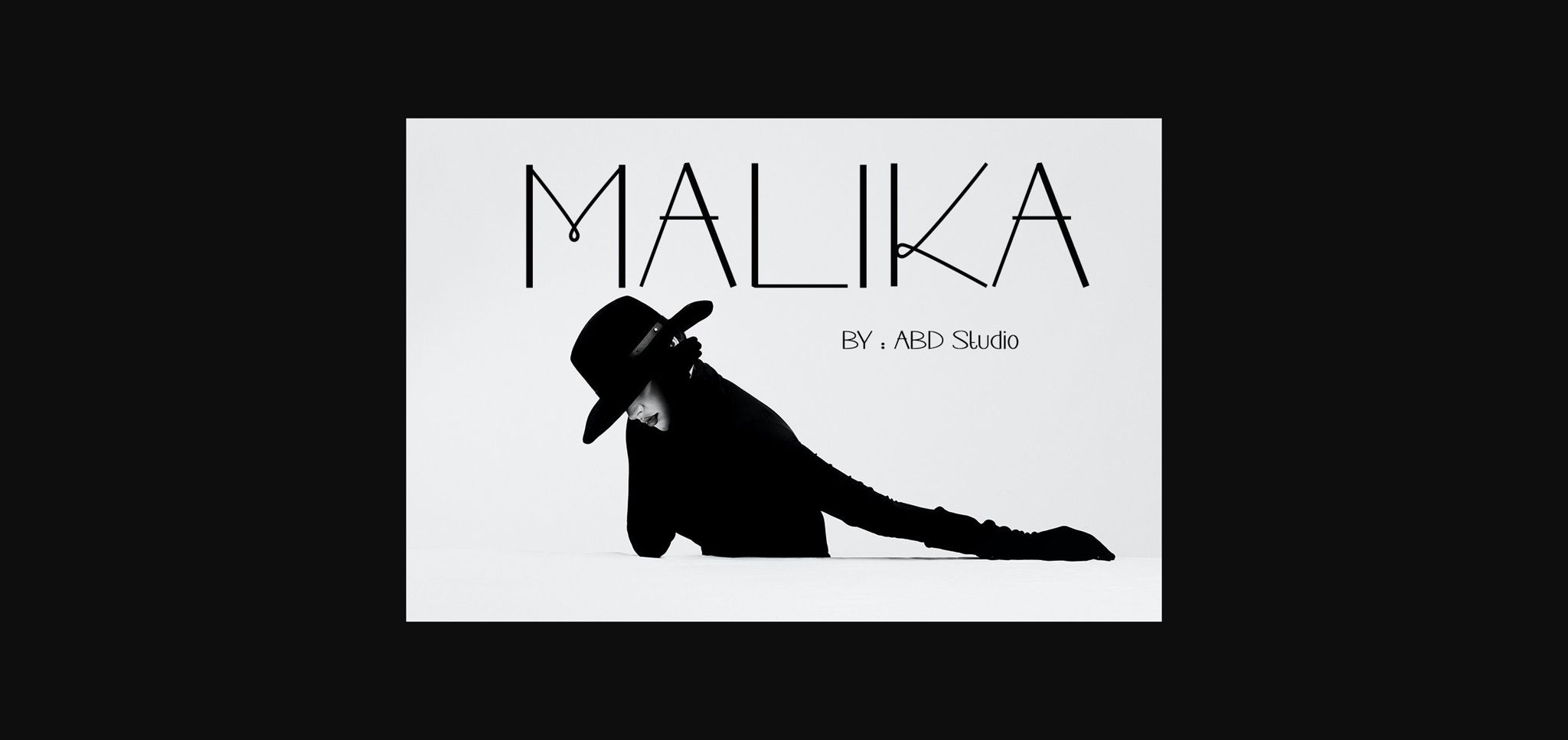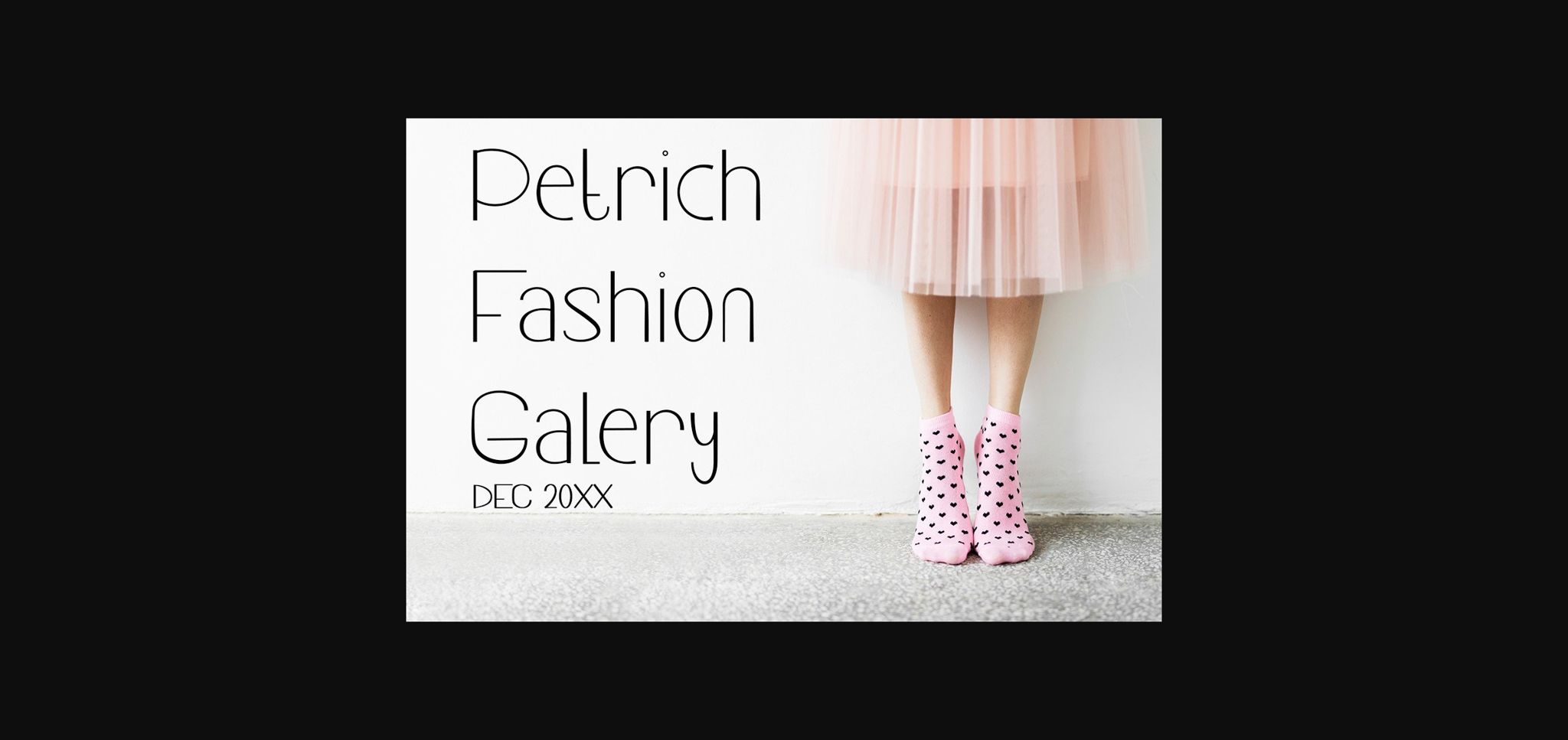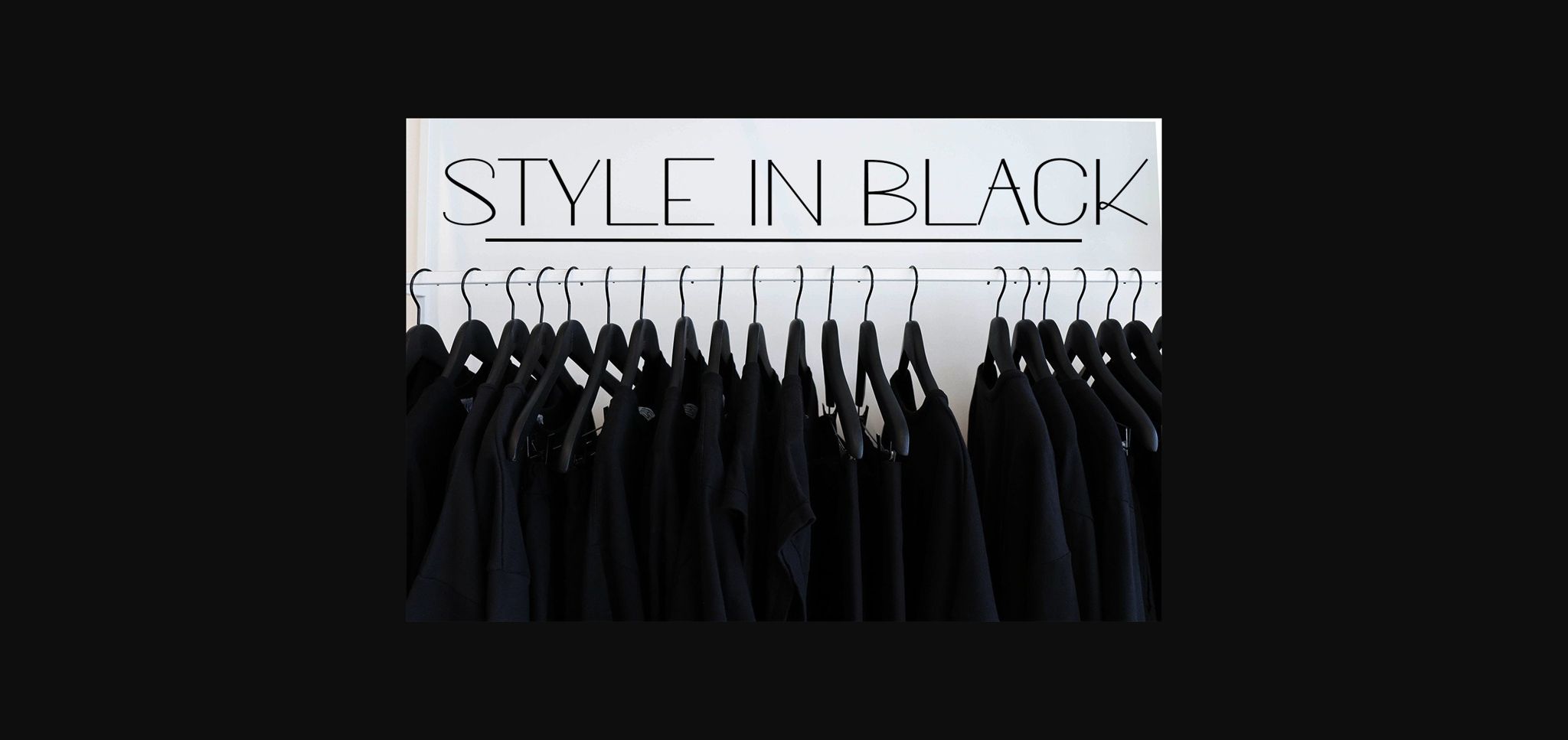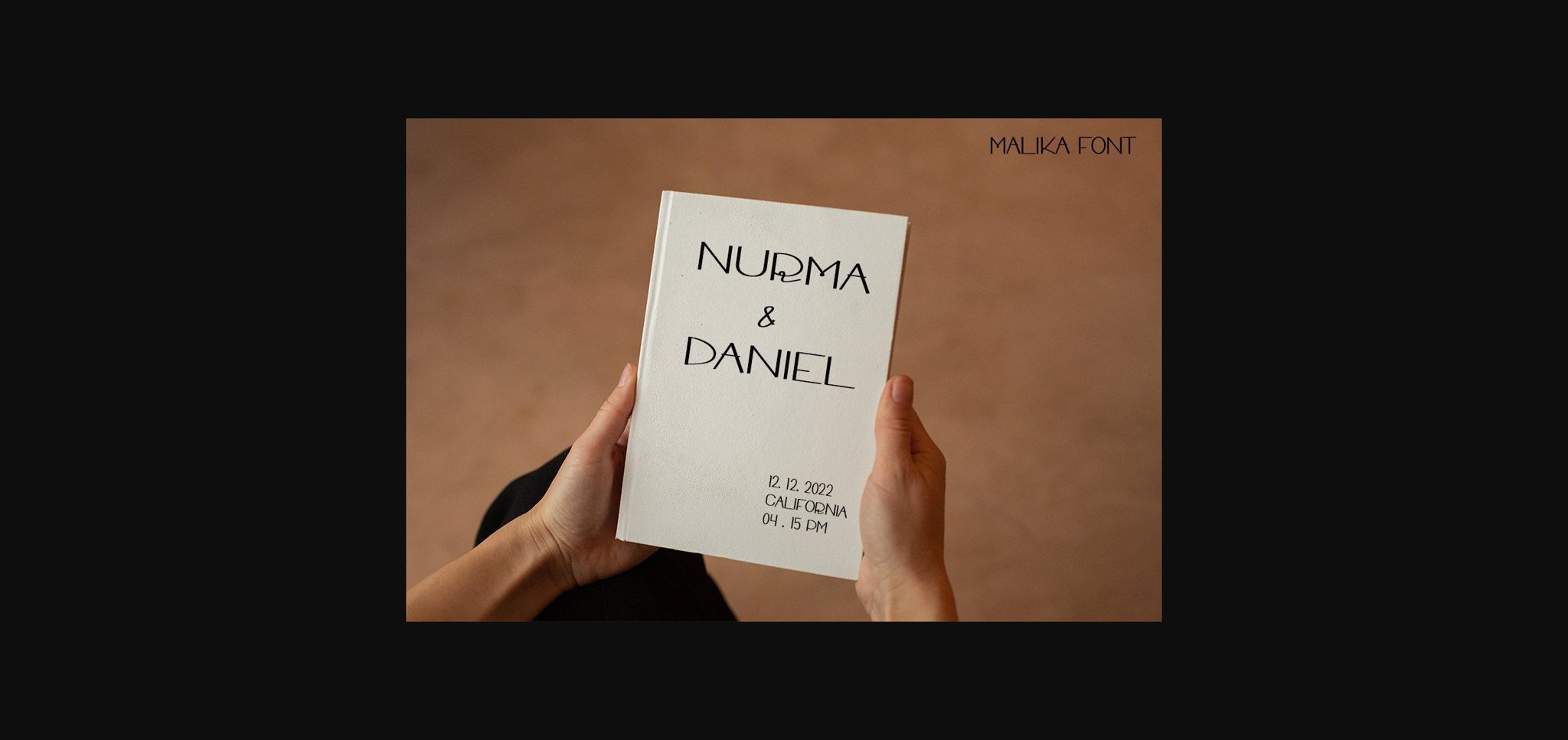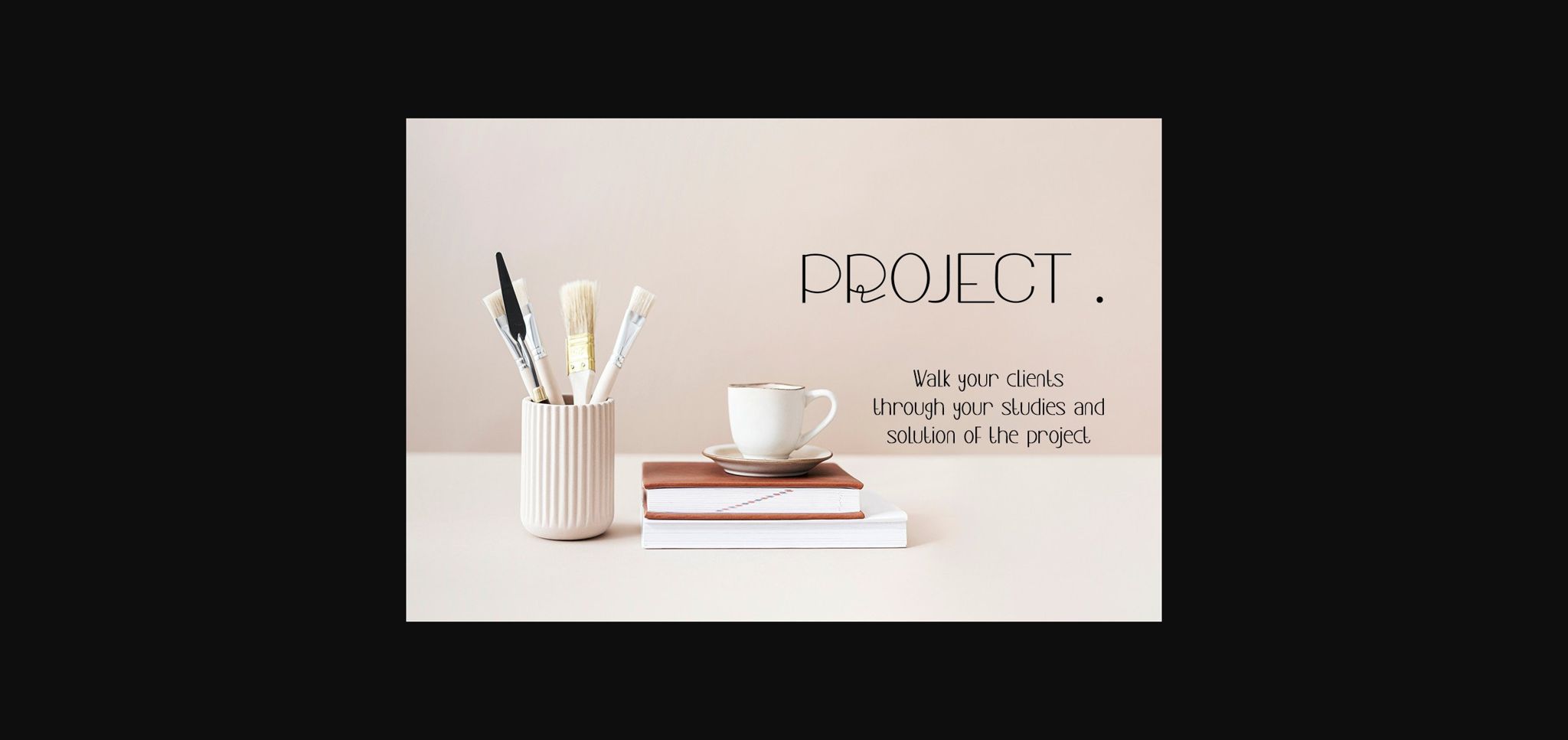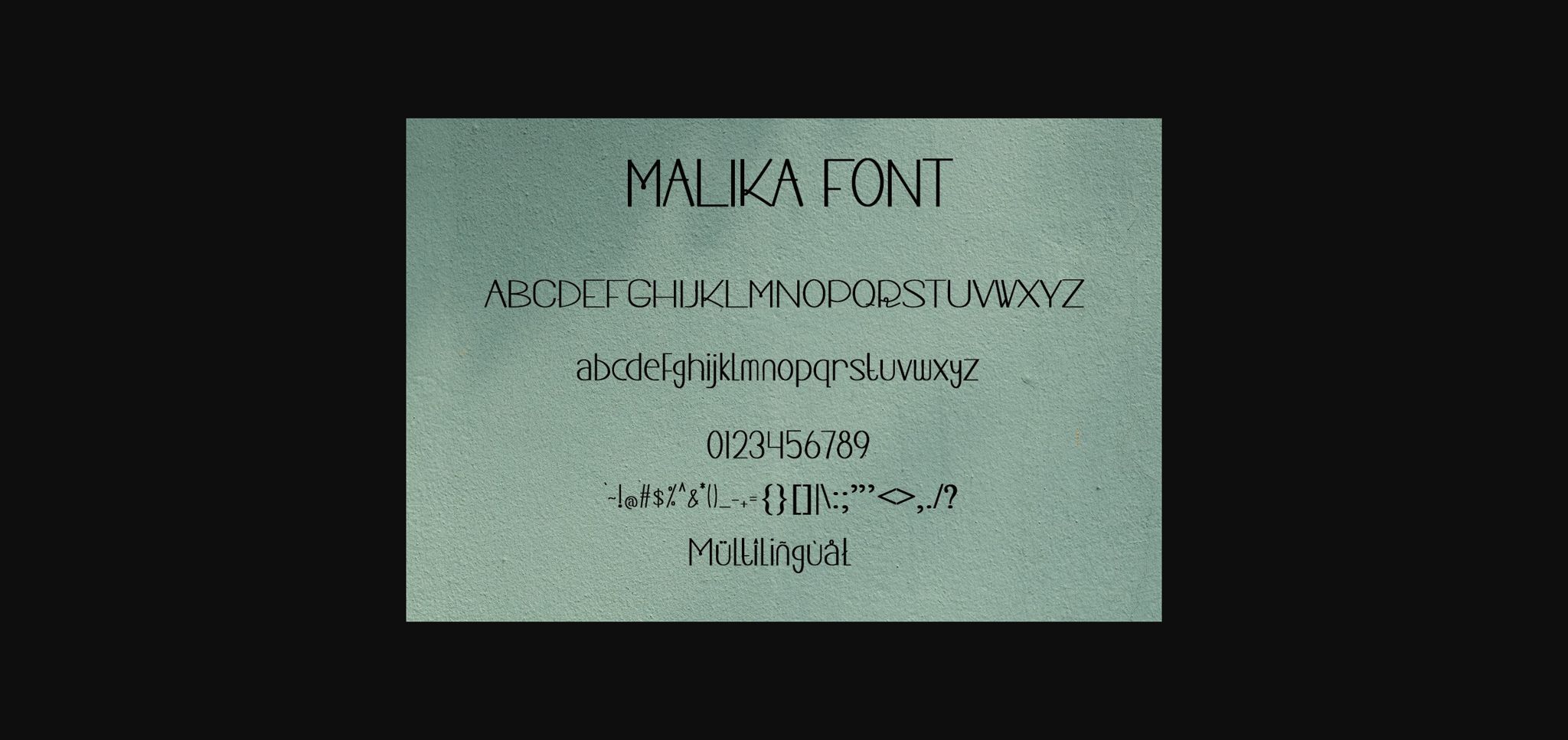
About Malika Font
Introducing Malika Font!
Malika is a modern fashion sans serif font. Every single letter has been carefully crafted to make your text look unique.